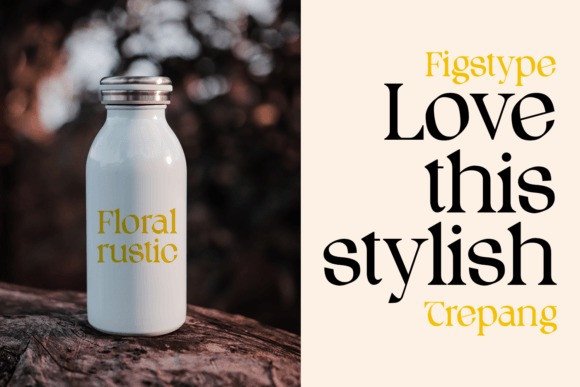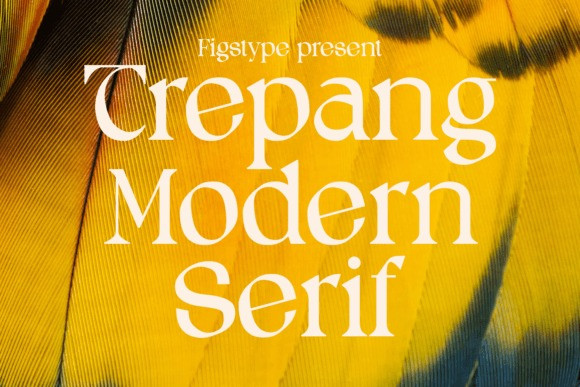
Trepang Font
Trepang Font is an elegant serif font that effortlessly blends timeless sophistication with a contemporary twist. With its captivating style and graceful letterforms, it strikes the perfect balance between legibility and artistic expression, making it a versatile choice that exudes timeless charm and modern appeal.